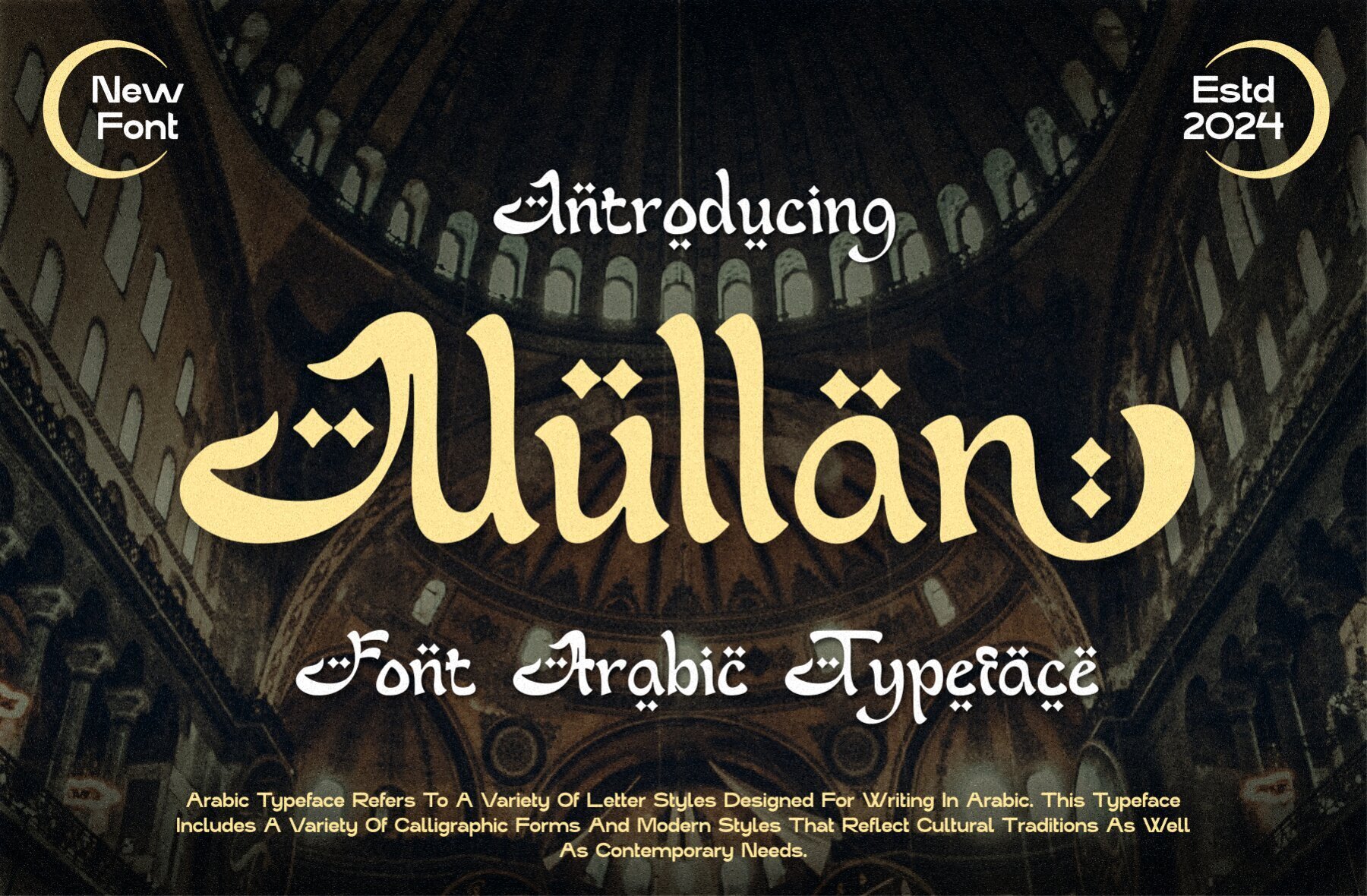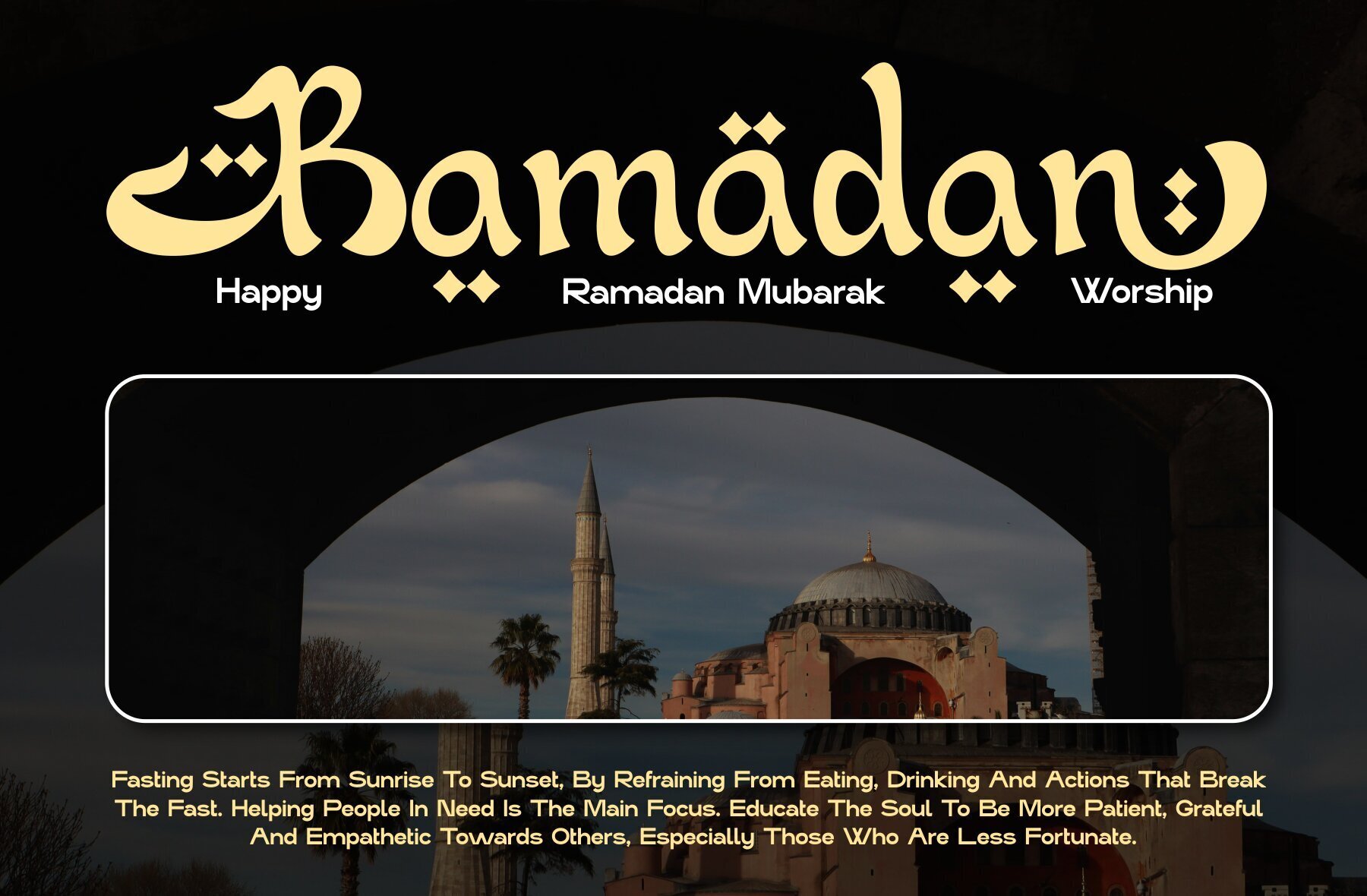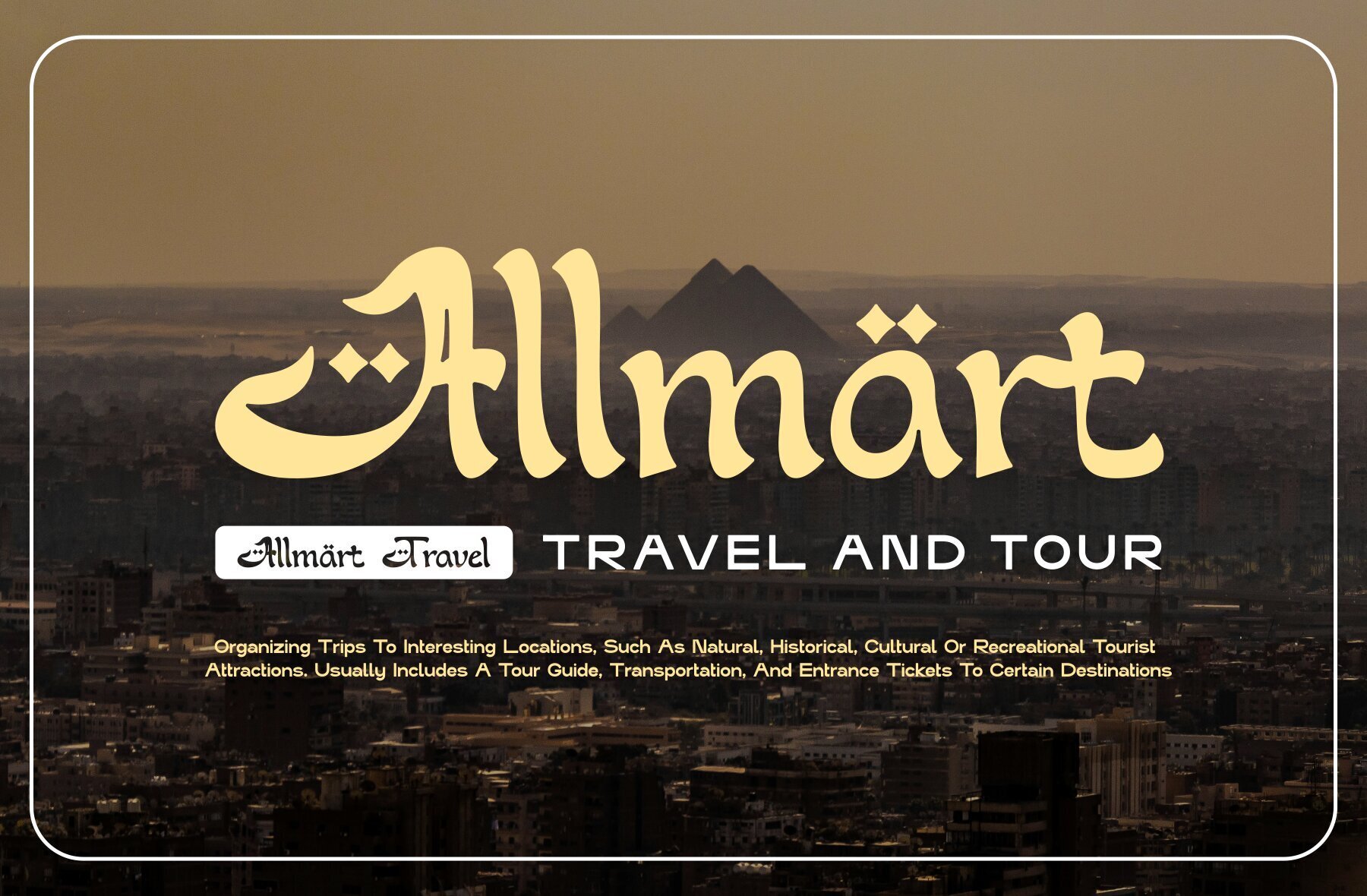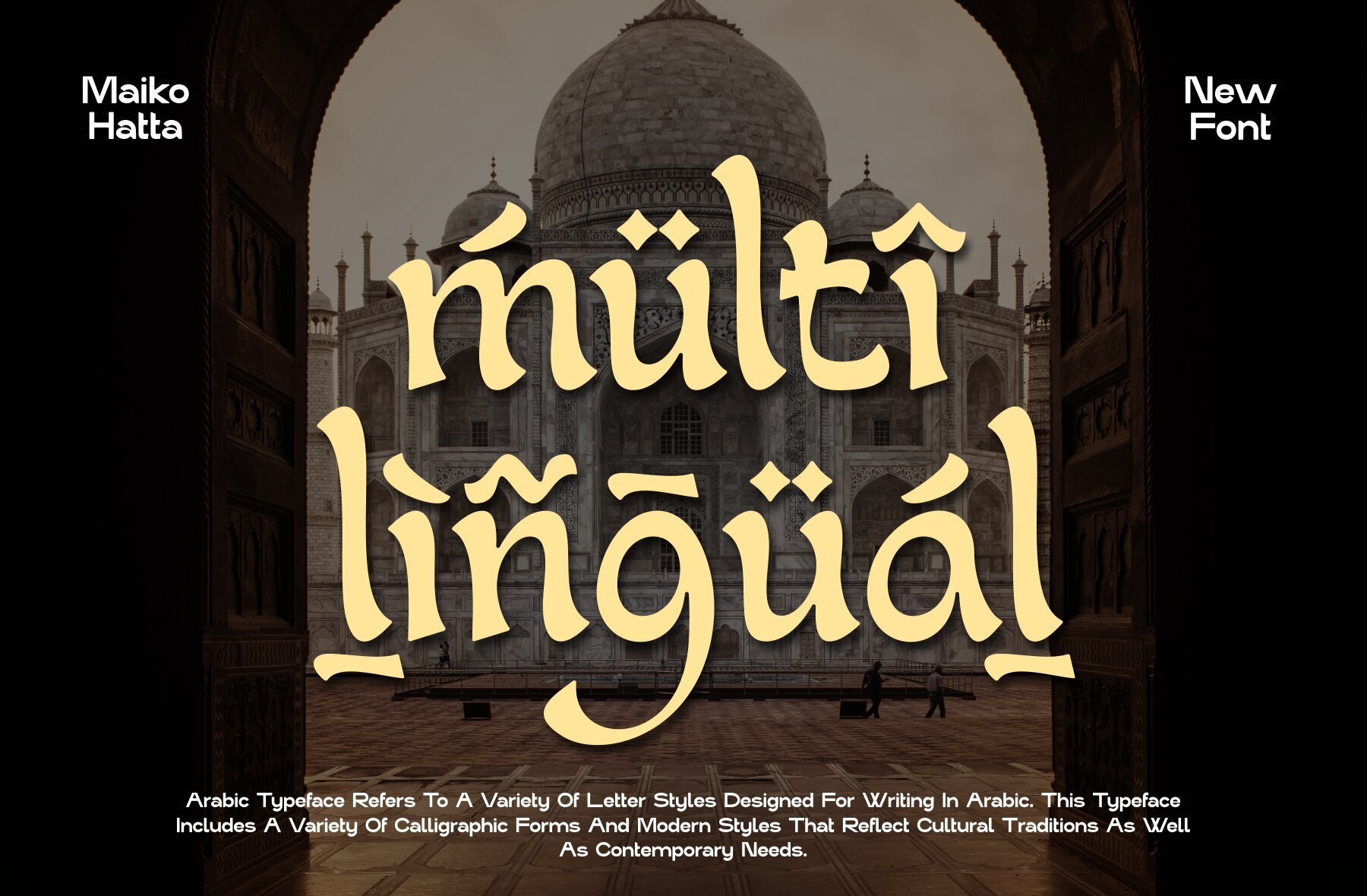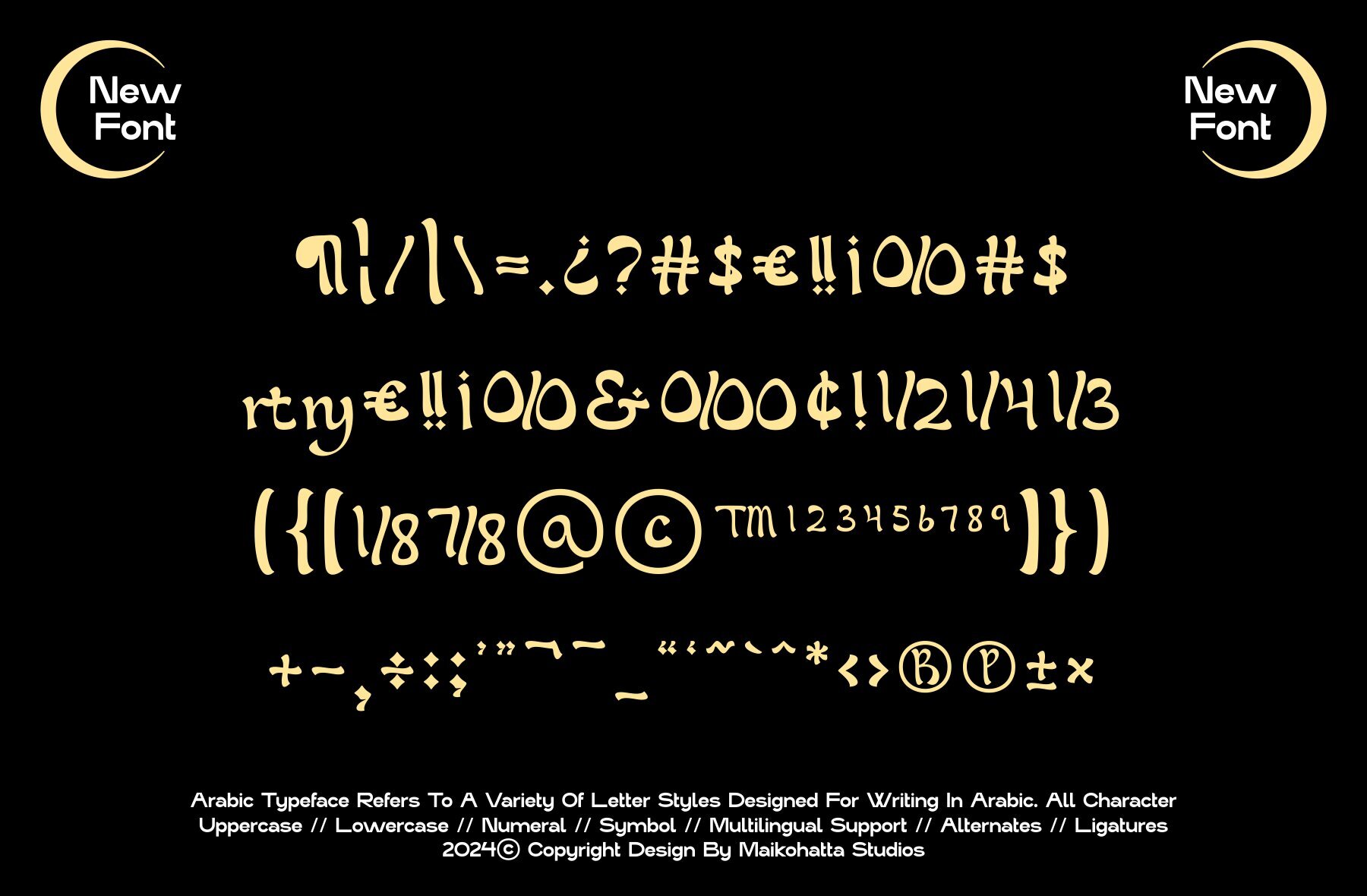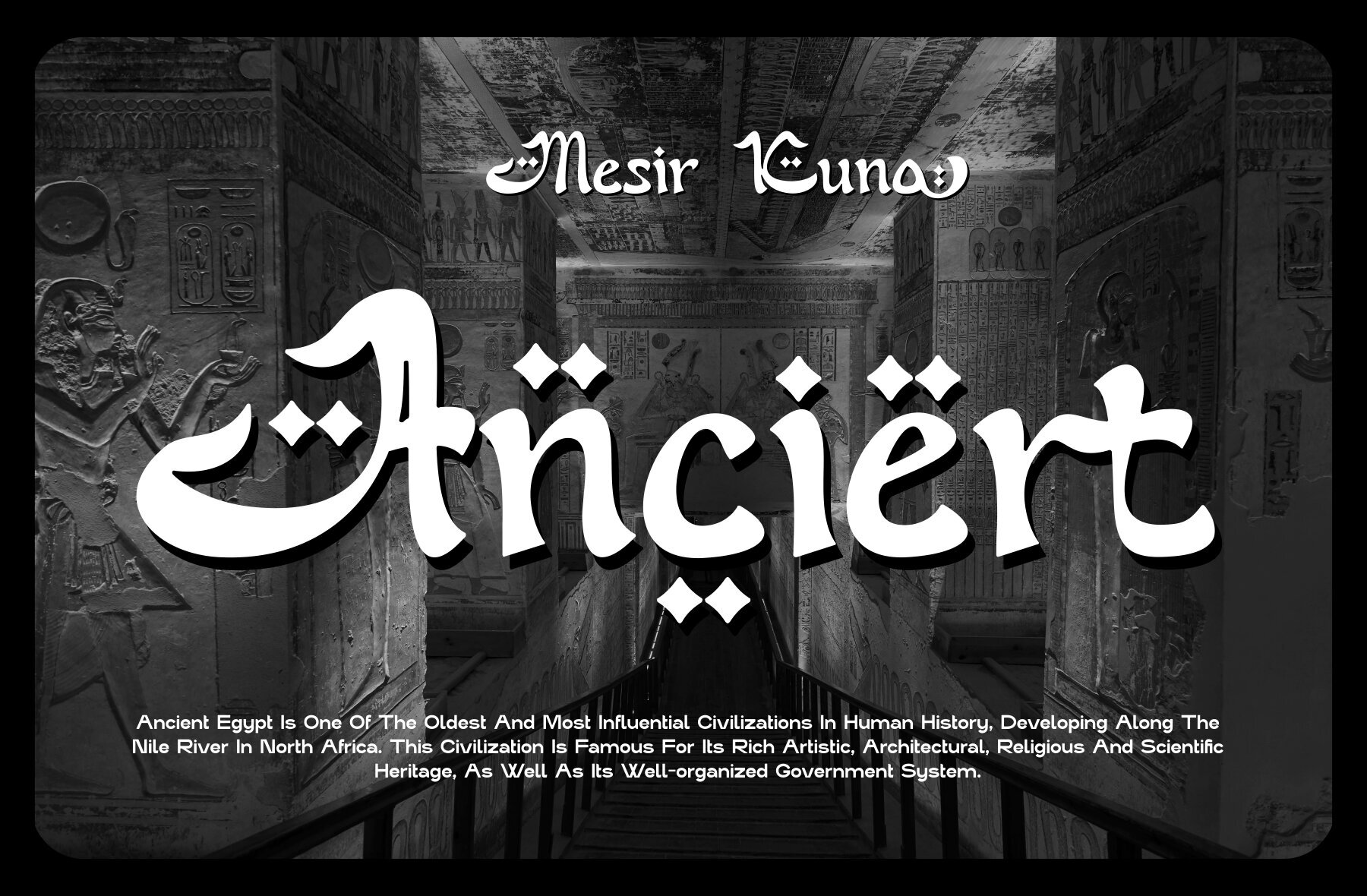
Nullan
Nullan is an authentic and bold Arabic typeface, designed to make a striking impact across various branding projects. Whether you're working on logos, template designs, or esports graphics, Nullan offers versatility in a wide range of contexts. Its distinctive features bring a unique character to your visual projects, enhancing readability and appeal.
This font includes various elements to support diverse creative needs: uppercase and lowercase letters, multilingual support, ligatures, and alternates. Each feature provides flexibility, allowing designers to customize and refine their work with ease. Nullan's strong visual presence makes it an excellent choice for projects requiring a dynamic and bold design element.